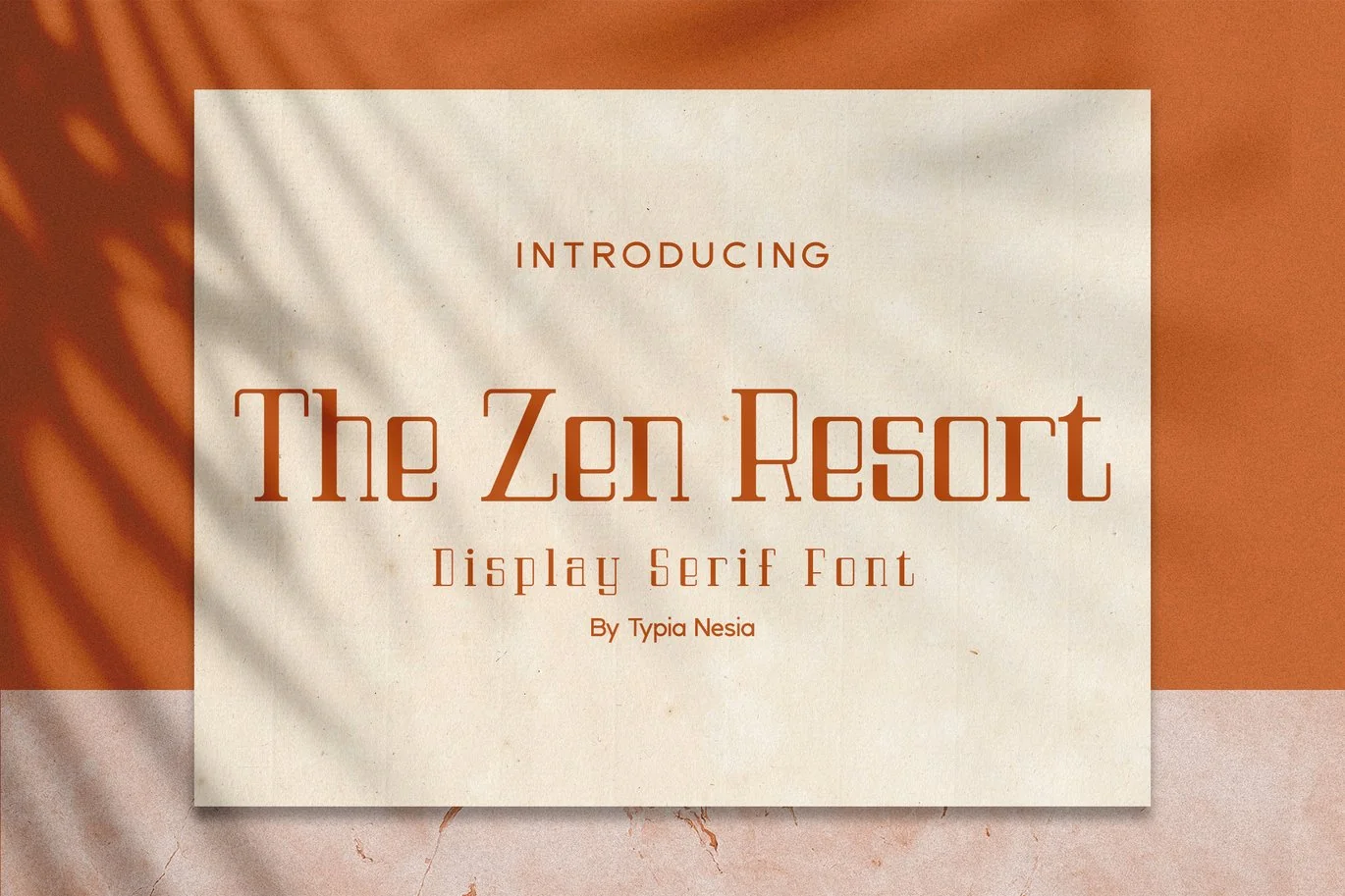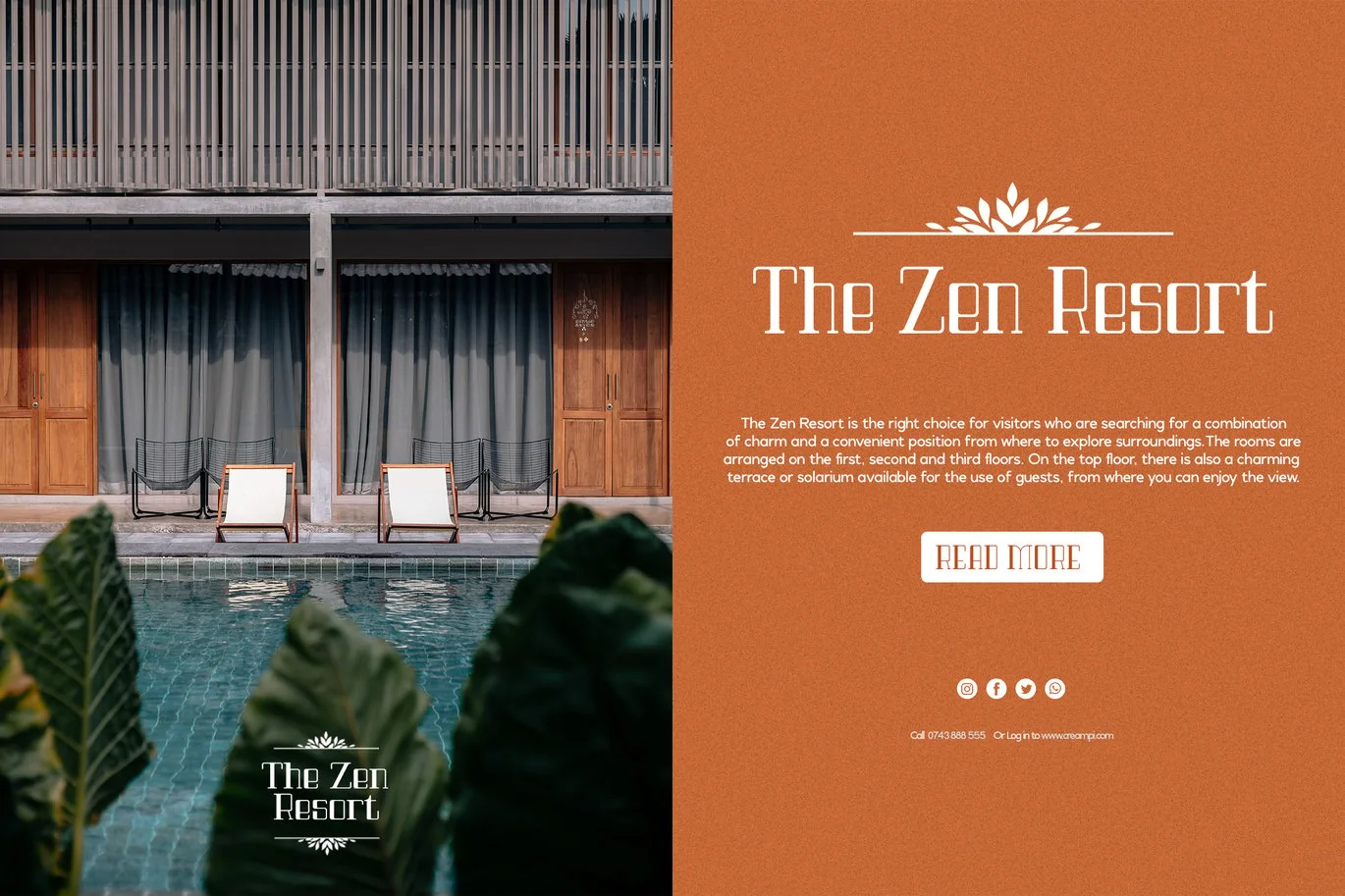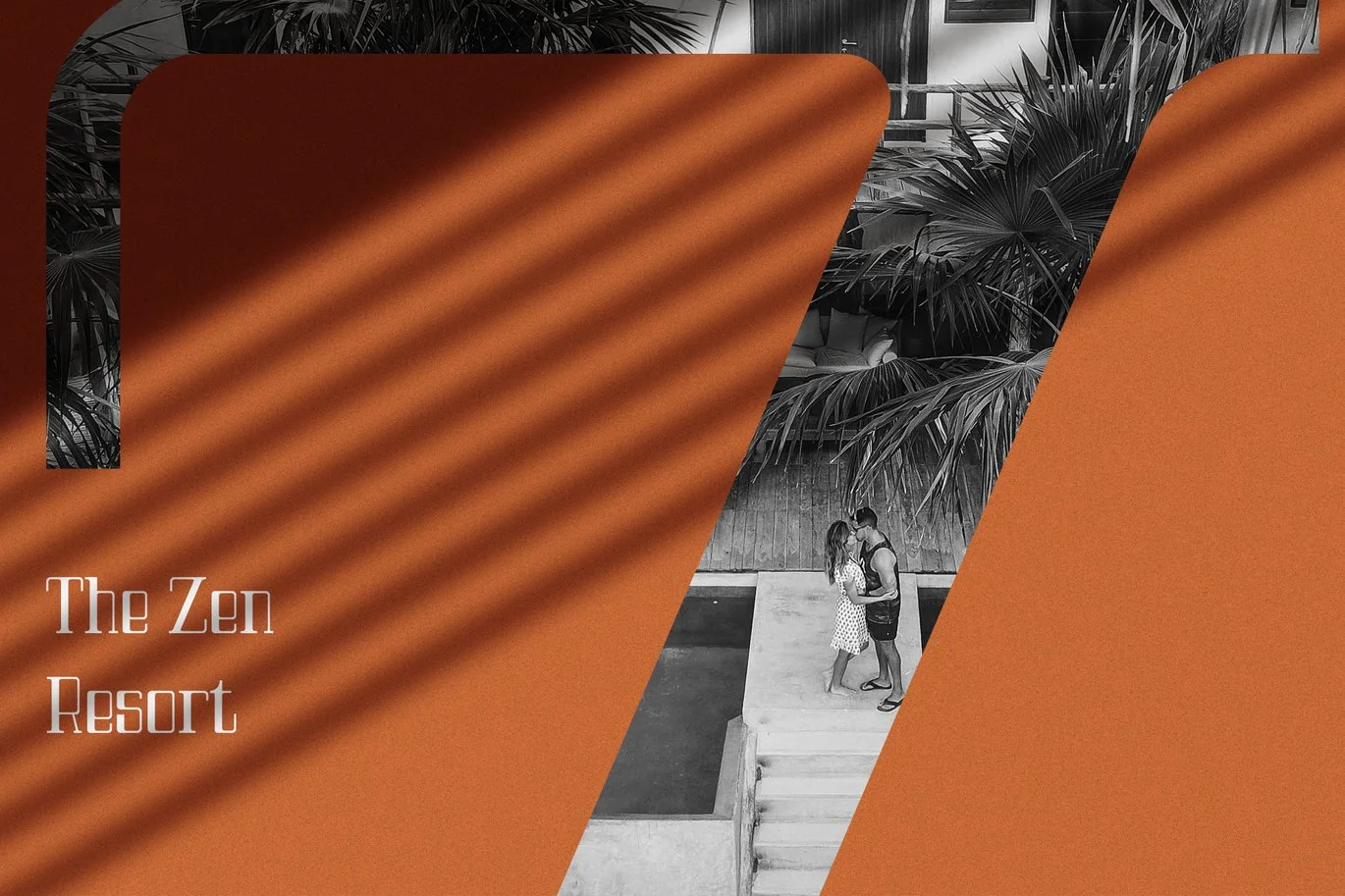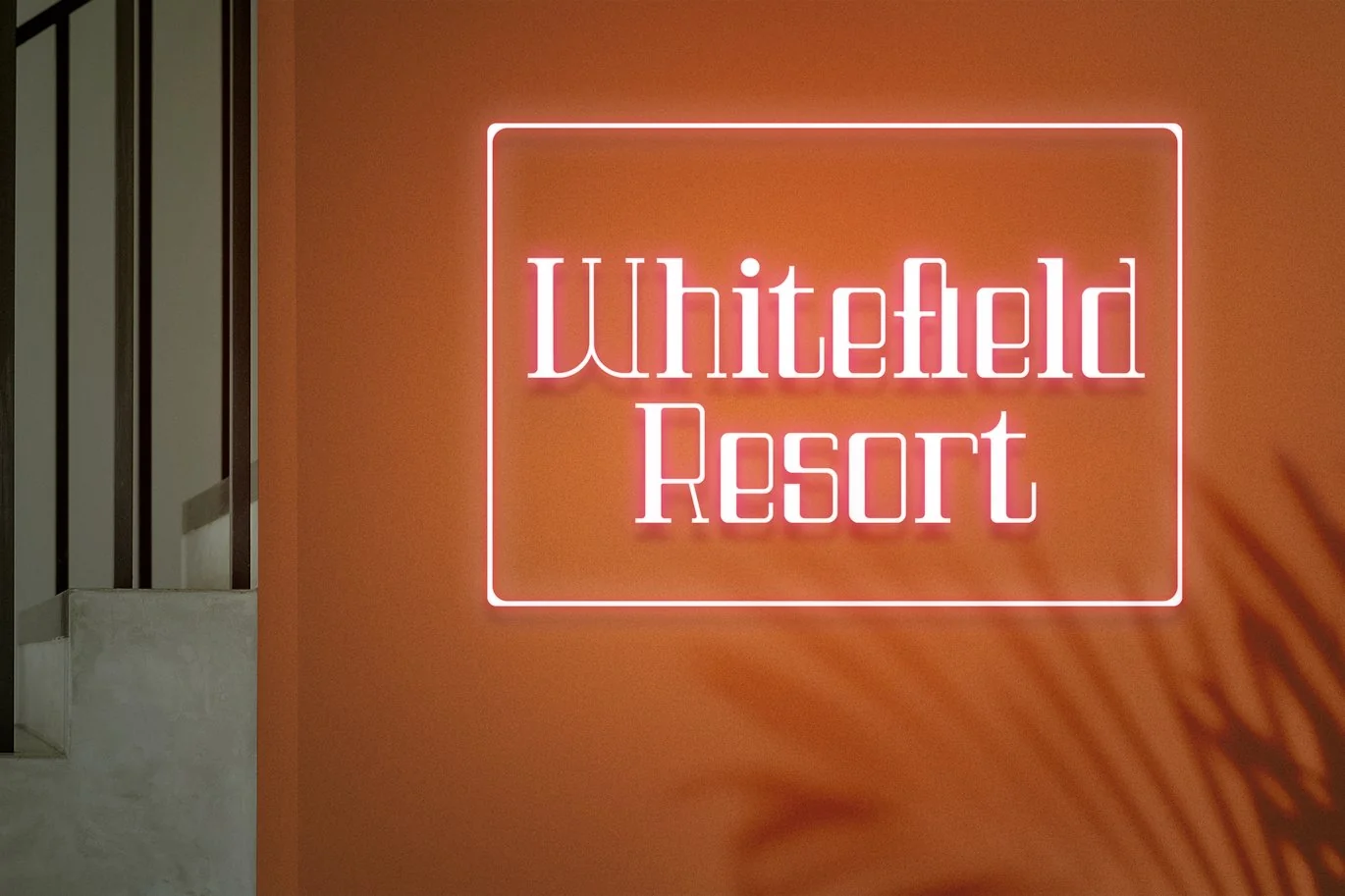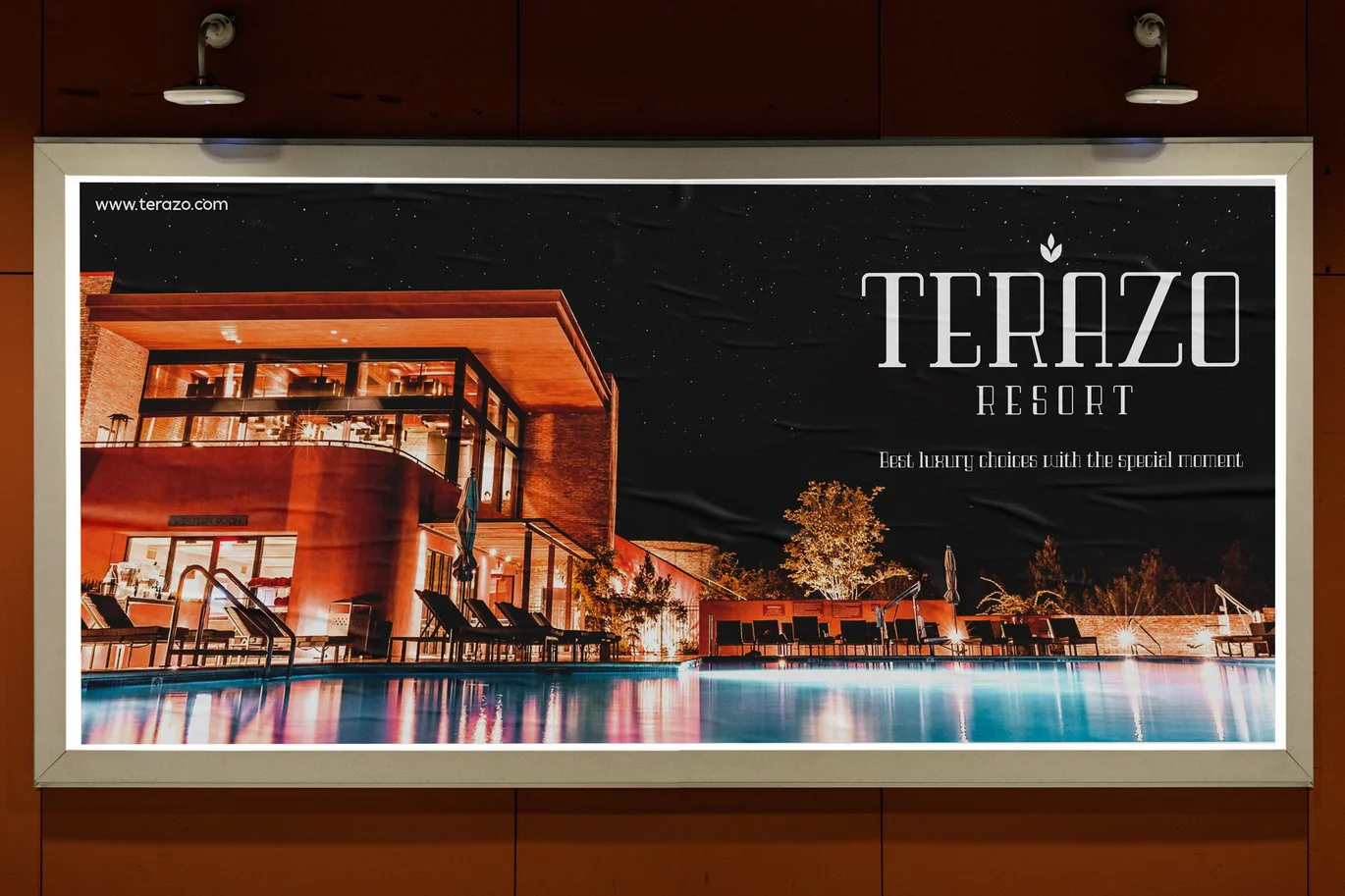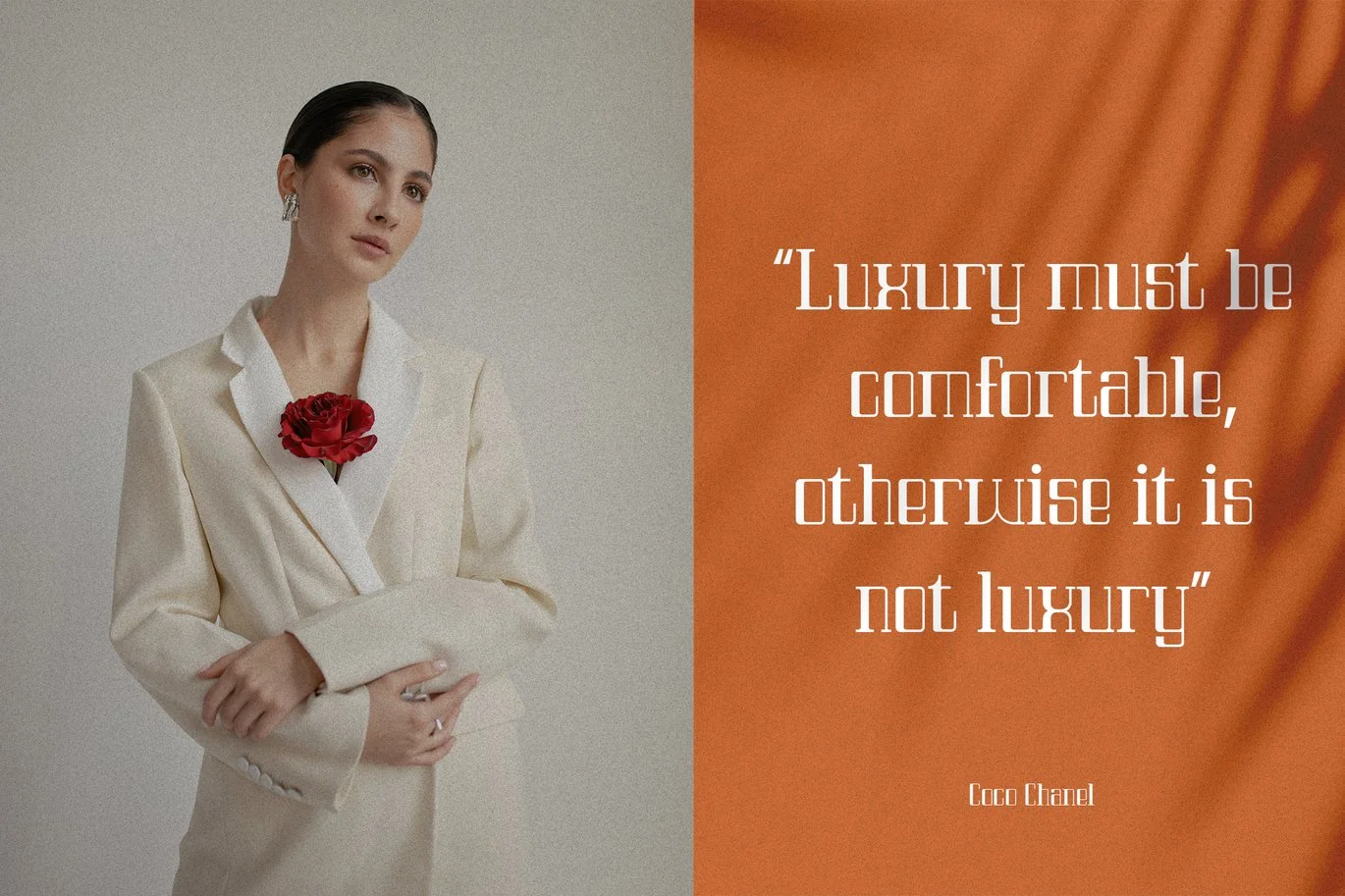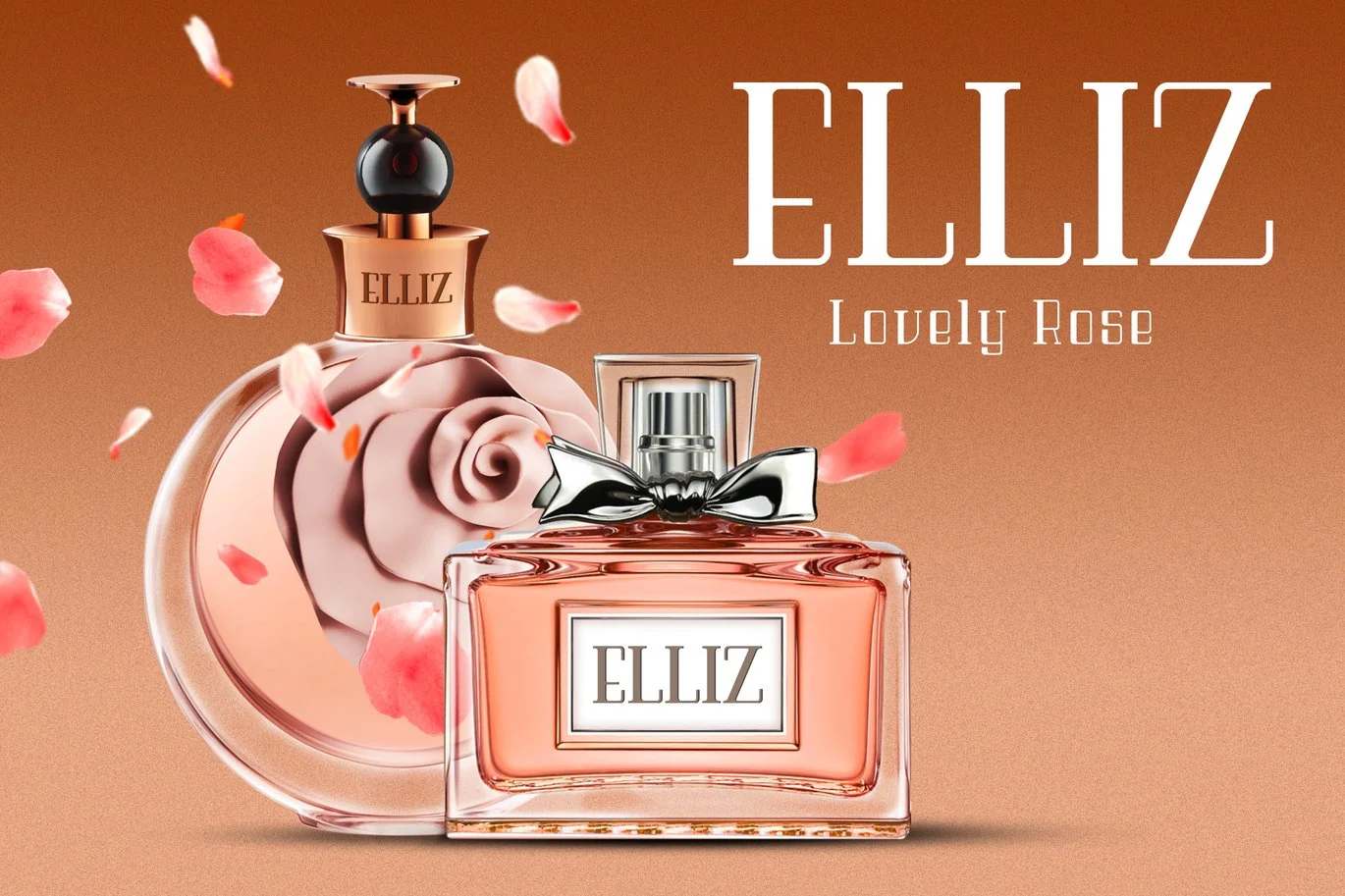
The Zen Resort – Royal Luxury Font
The Zen Resort a new elegant and luxury sans serif font with classy and royal feels ?
The Zen Resort font is perfect for your up coming projects. Such as logo branding, editorial design, stationery design, blog design, modern advertising design, card invitation, art quote, home decor, book/cover title, special events ( wedding, birthday, etc ), and any more.